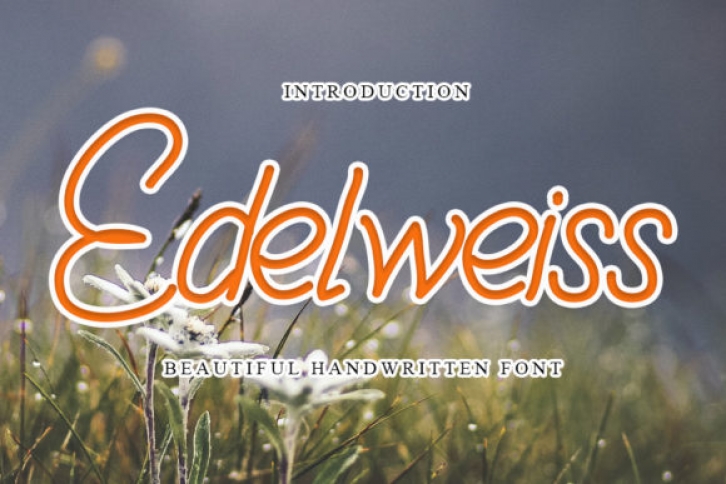
Edelweiss is a beautiful script font designed with an incredibly modern feel. Use it to make your ideas even more realistic and create spectacular designs!